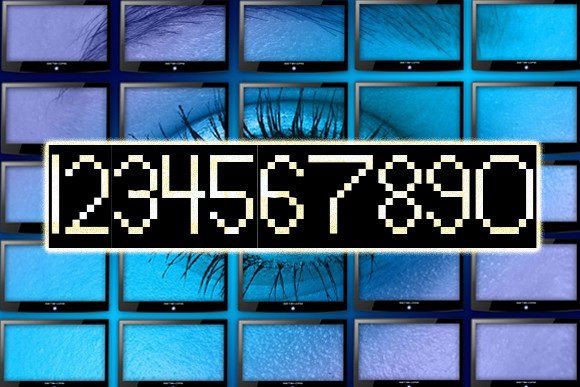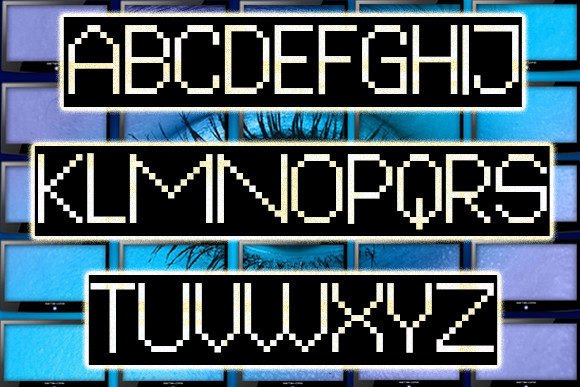
Introduction to Relinquish Font
Relinquish is a superb LCD typeface that will fit perfectly on any of your designs.
Use this lovely display font on posters, flyers, and t-shirts .
Key Features of Relinquish Font